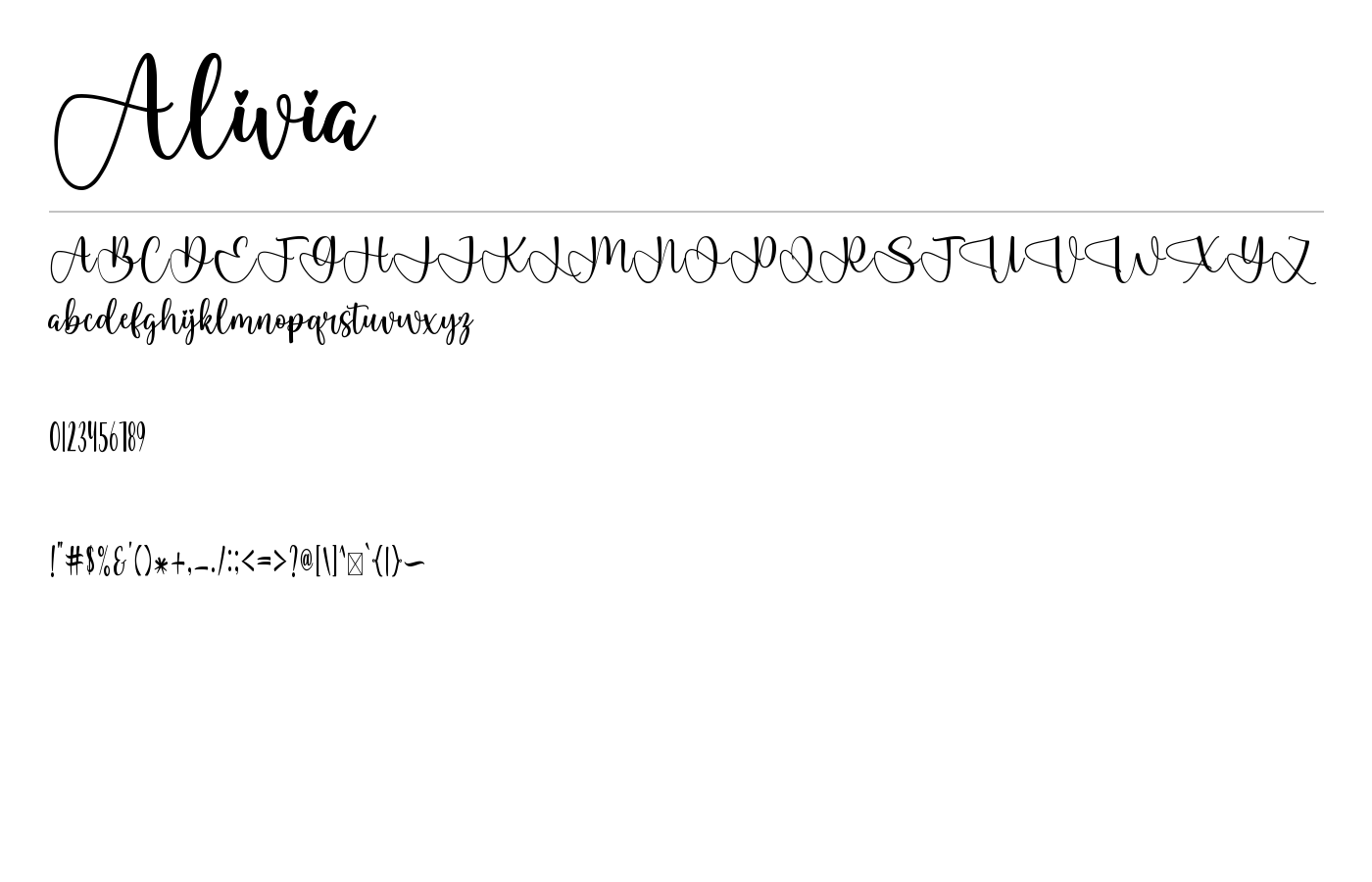
Alivia is a delicate, handwritten script font featuring elegant, flowing uppercase letters with charming loops and playful heart details, paired with a more solid, cursive lowercase style. Its slender, graceful strokes give it a light, airy feel perfect for romantic or whimsical branding, invitations, and feminine design projects. This font works beautifully for adding a personal, stylish touch to logos, greeting cards, and social media graphics.
Alivia Font
About Alivia Font